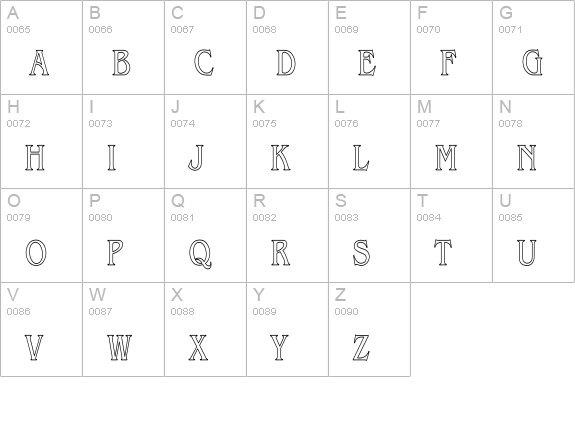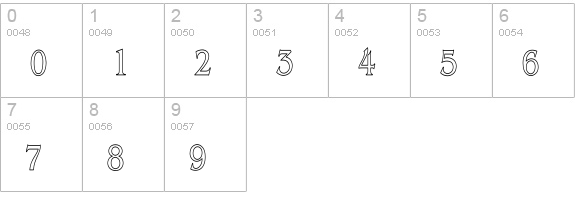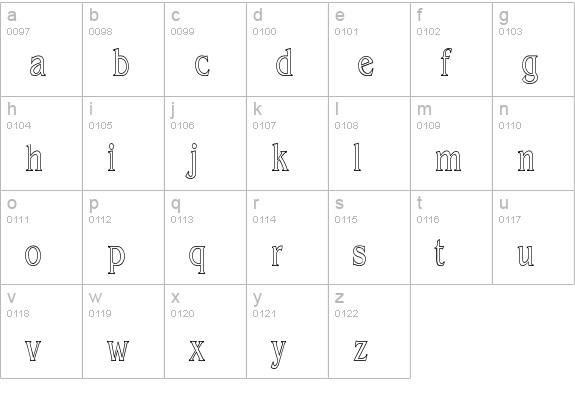
Benguiat-LightHC is a beautifully crafted font that exudes elegance and sophistication. With its delicate strokes and graceful curves, this font is perfect for adding a touch of class to any design project. The light weight of the font gives it a subtle and refined appearance, making it ideal for use in headings, titles, and other display text. What sets Benguiat-LightHC apart is that it is available for free download at FontsMarket.com. This means that you can easily access this stunning font and use it in your projects without any cost. Whether you are working on a website, a poster, a logo, or any other creative endeavor, Benguiat-LightHC is sure to elevate your design with its timeless charm and beauty. Download this font today and bring a touch of sophistication to your work!